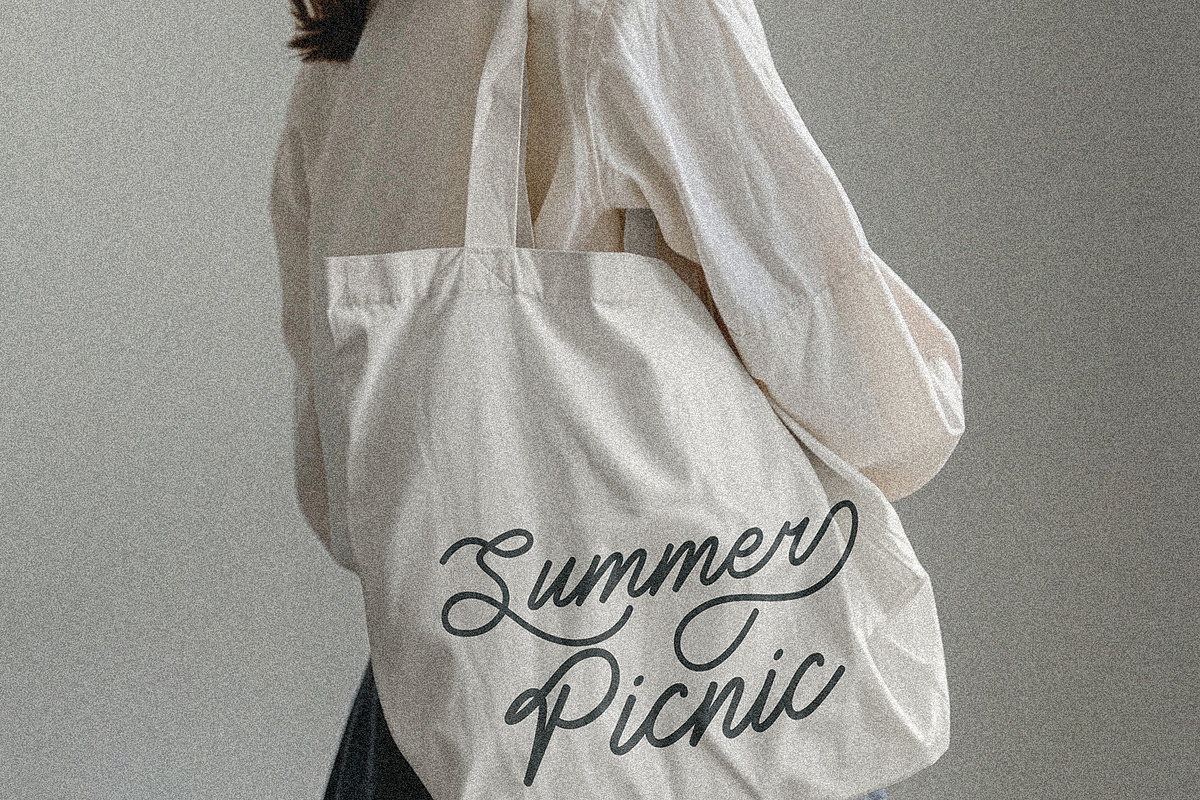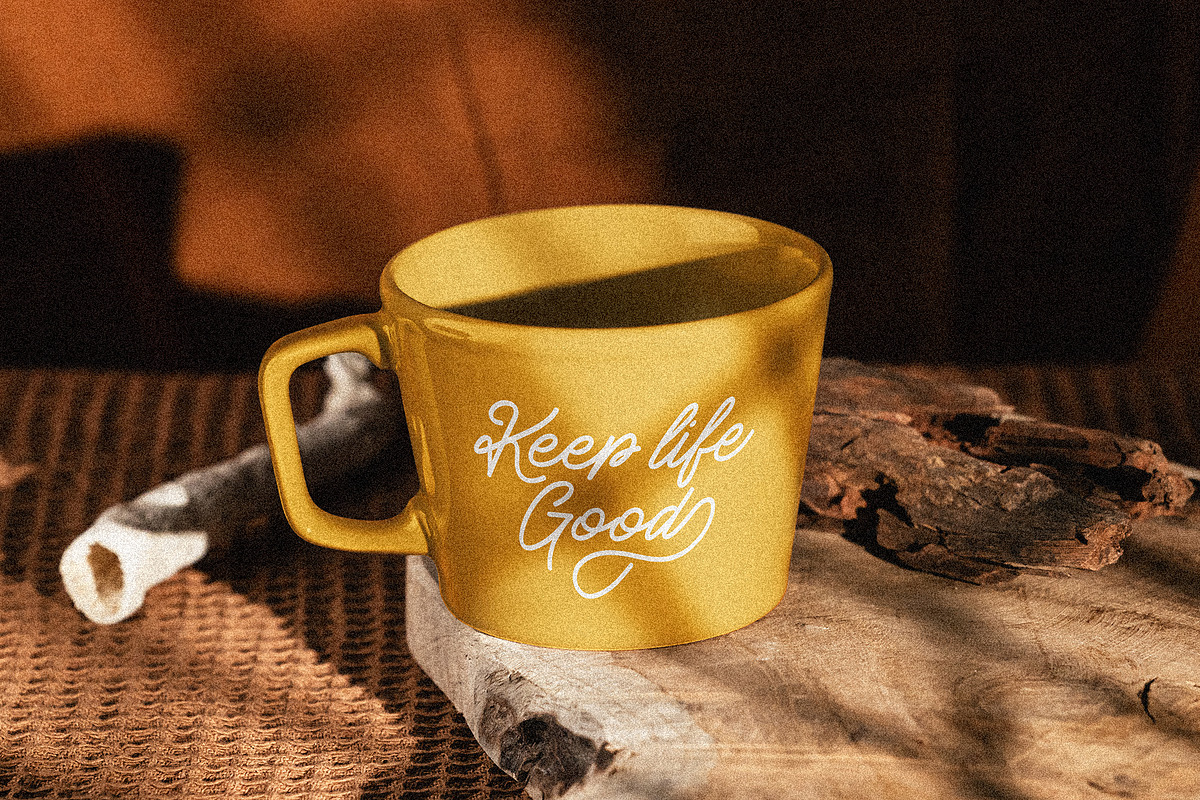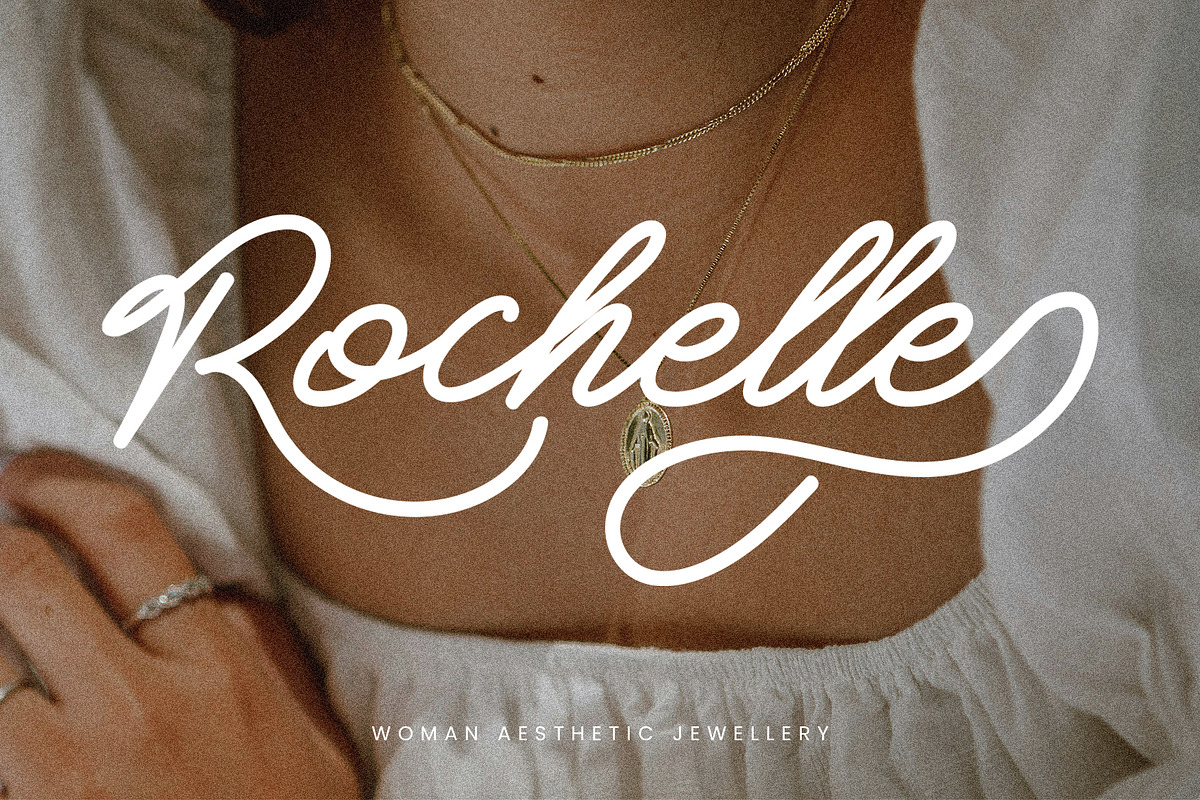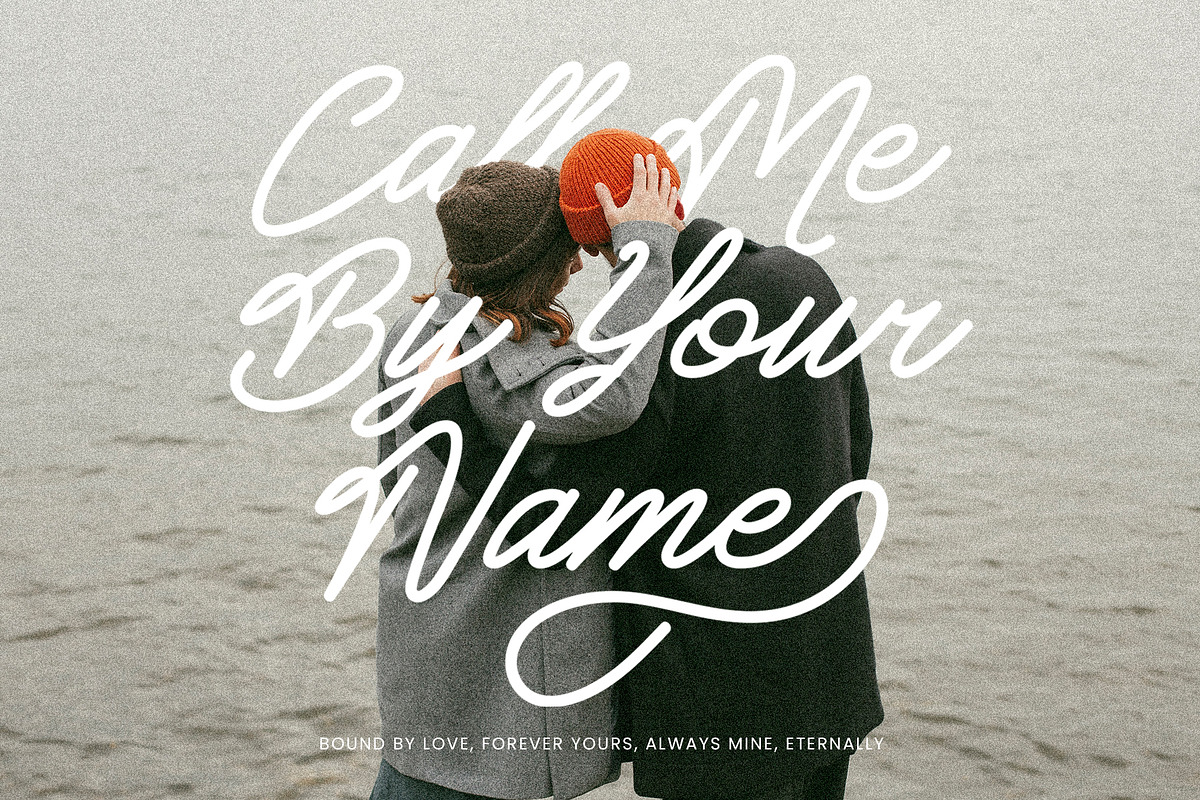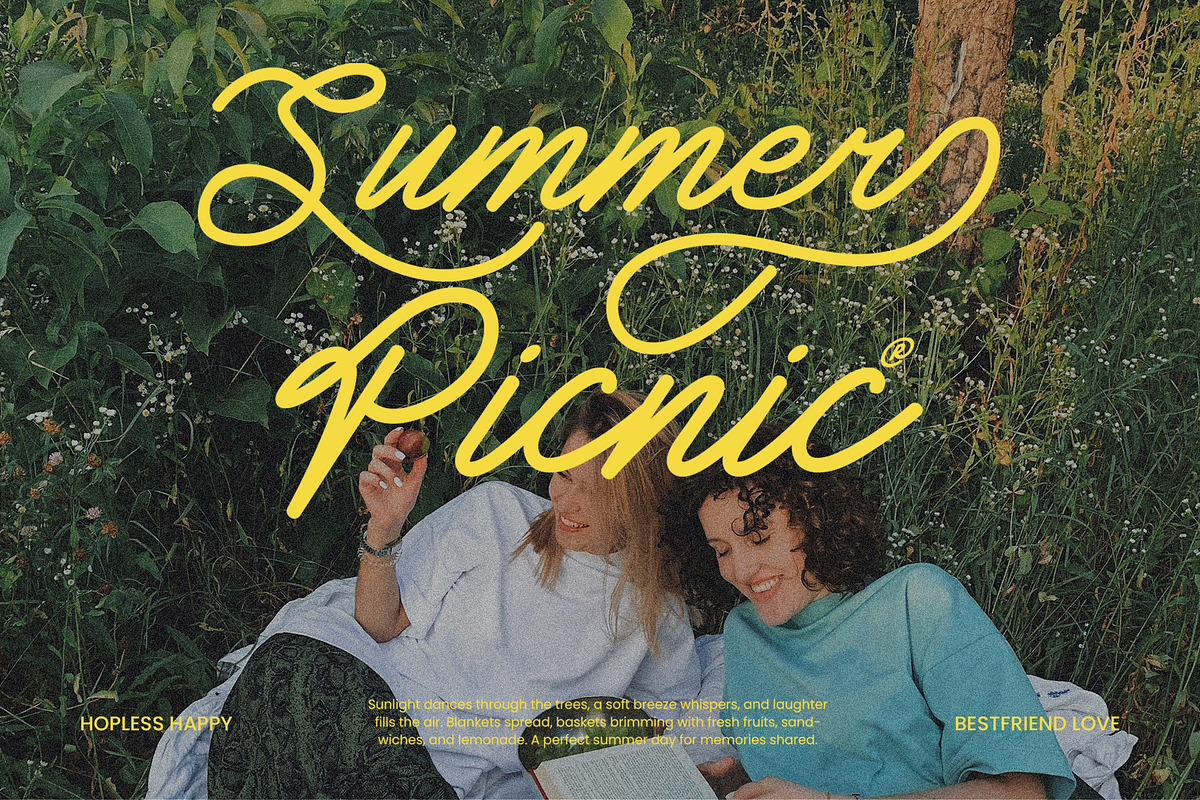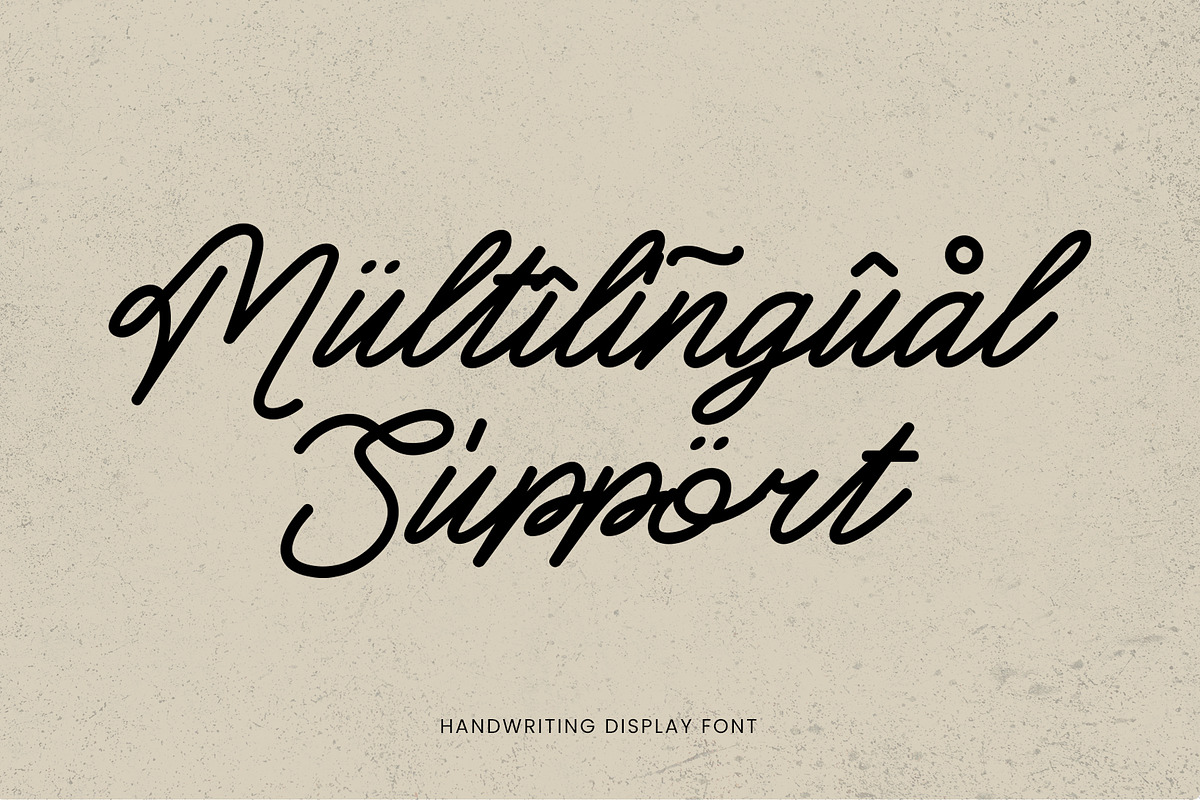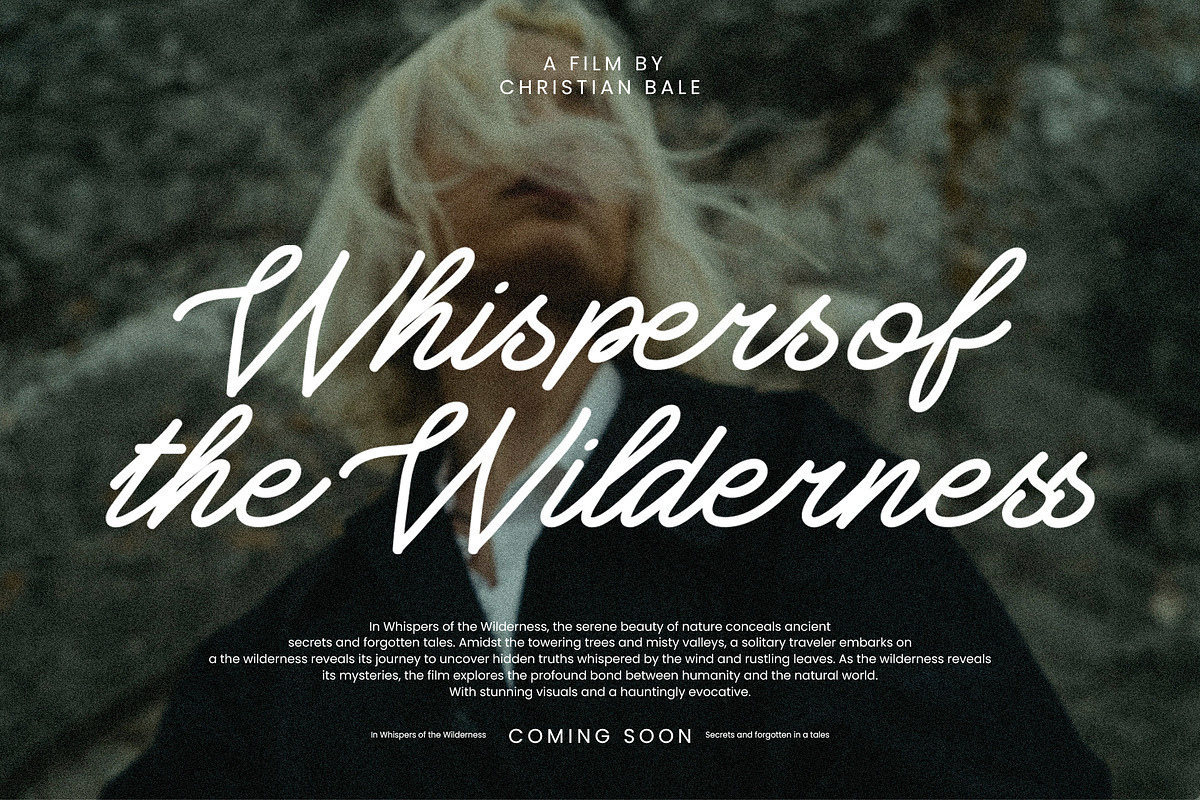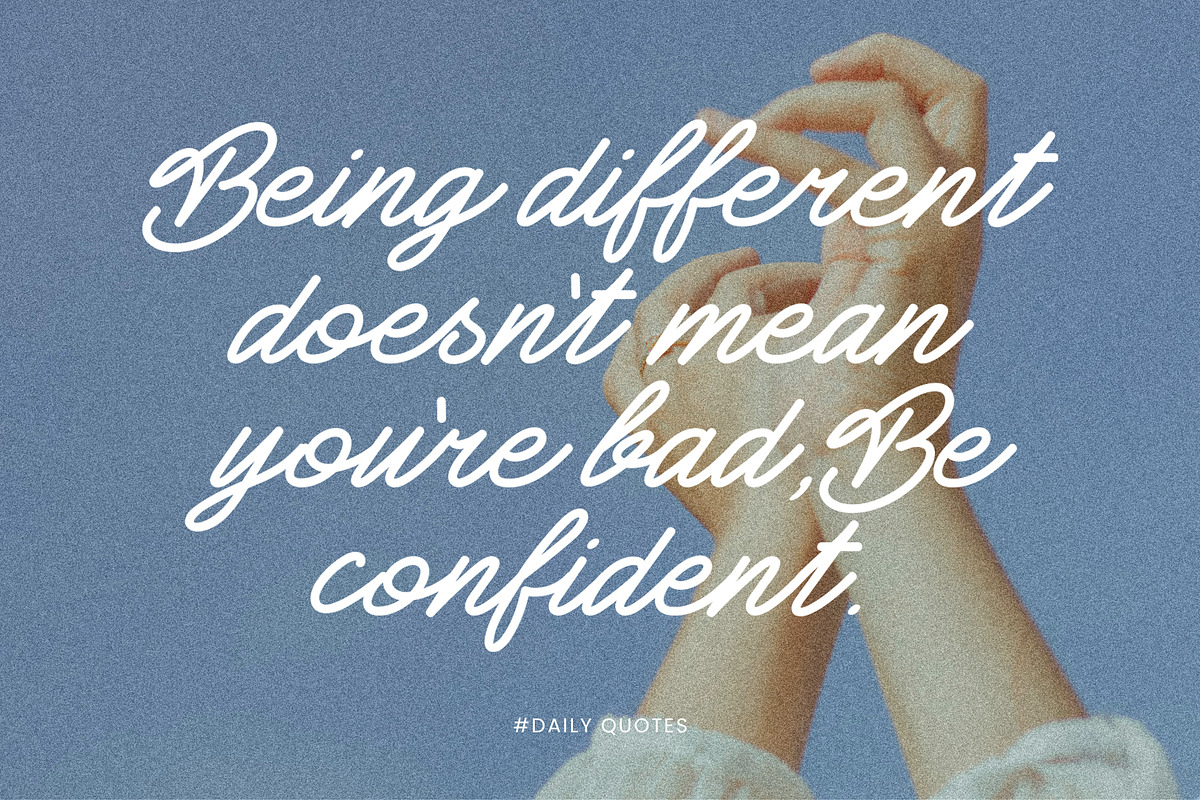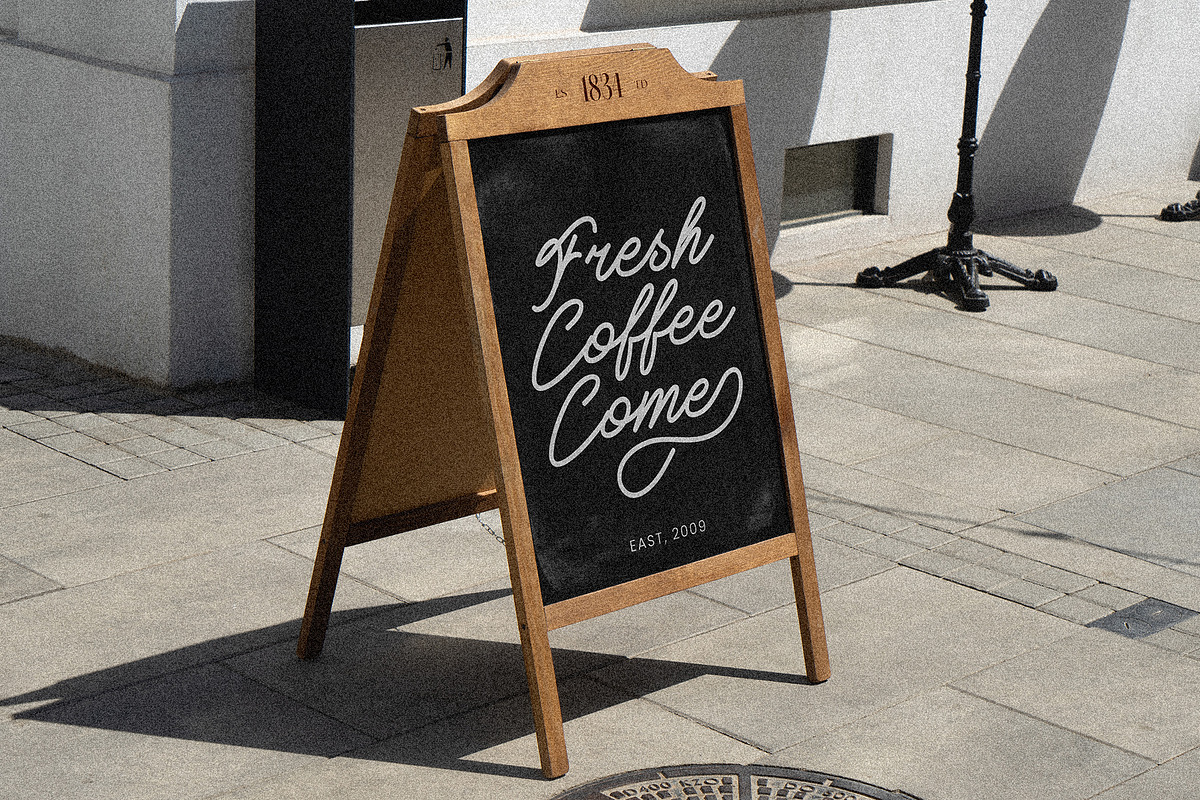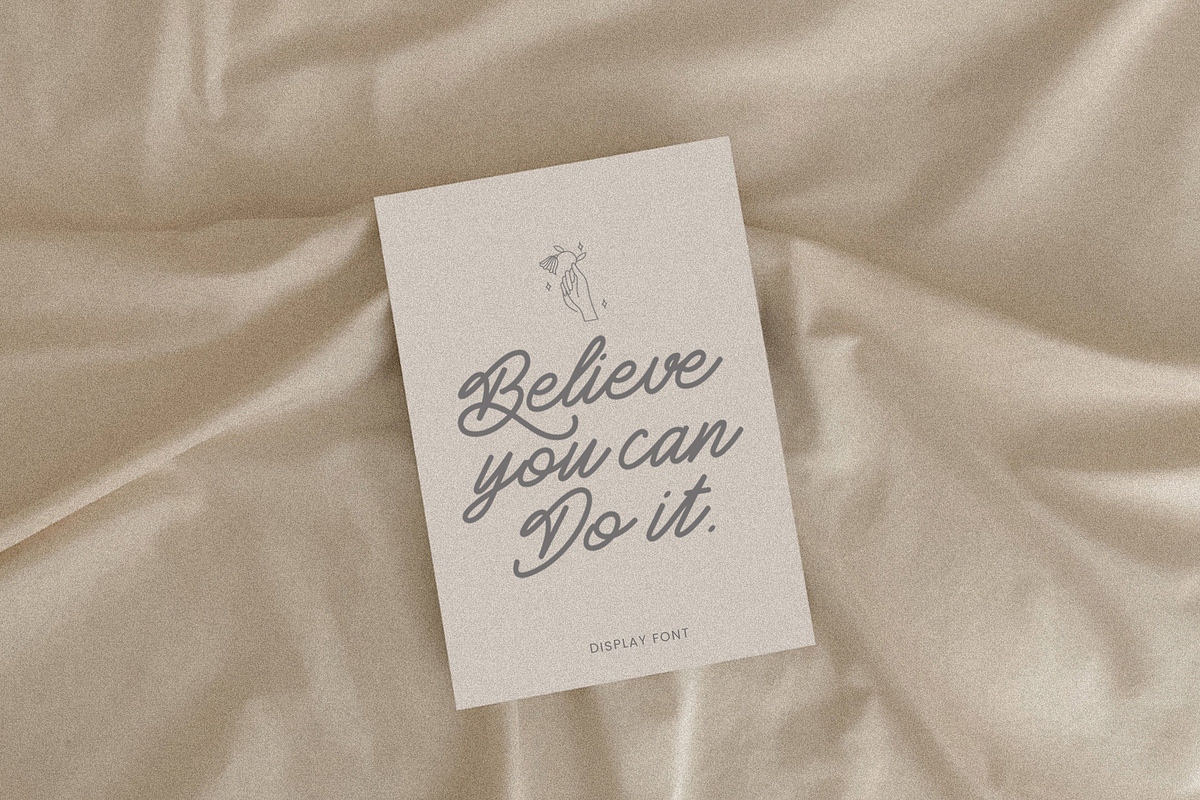
Emelia - Handwriting Font
Bring a touch of Groovy to your designs with this meticulously crafted font collection. Perfect for adding a Handwriting vibes to your branding, packaging, logos, and more.
- Uppercase & Lowercase Characters: Fully designed for a complete typographic experience
- Numerals & Punctuation: All the numbers and punctuation marks you need for any design task
- Multilingual Support: Includes characters for multiple languages, ensuring global usability
- High-Quality Design: Each font is crafted with attention to detail, ensuring a polished and professional look